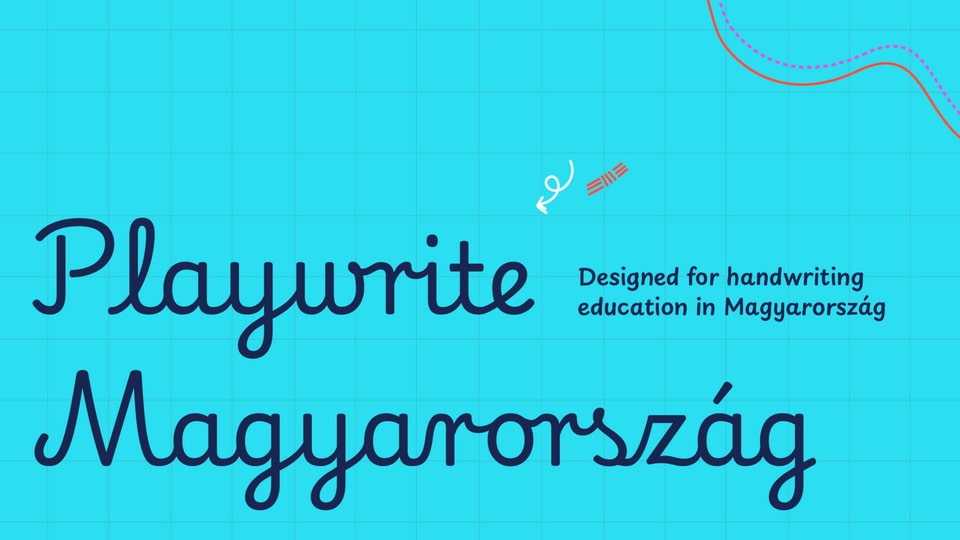
Download Playwrite Magyarország font, a typeface that allows the creation of primary school cursive fonts. Inspired by the Sütterlin German style, this vertical continuous cursive features short and sometimes looped ascenders and descenders
Designer: TypeTogether